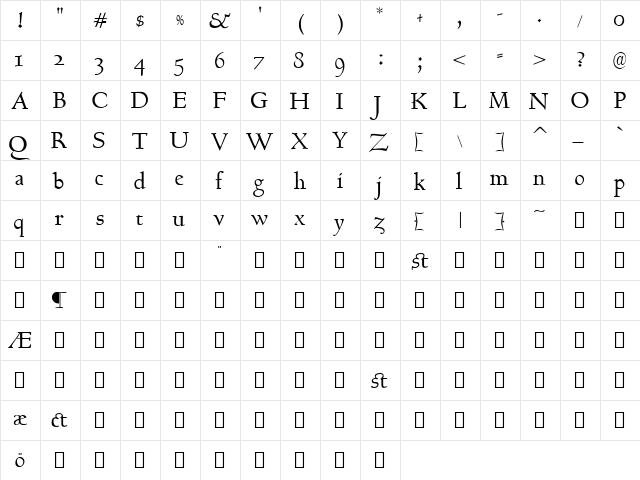
Bertham Regular Font Preview
Bertham Regular
Bertham Regular Font Details
Design Context for Bertham Typeface
Bertham is a composed and adaptable typeface that performs quietly and consistently across a wide range of design contexts.